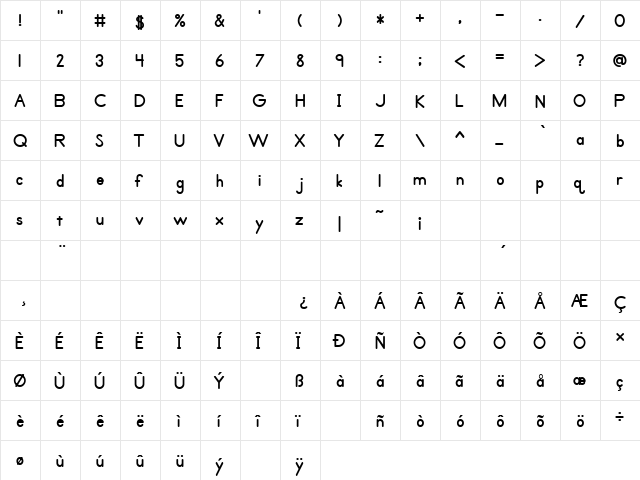
Primer Print Bold
| Foundry | Larabie Fonts |
Design Context for Primer Print Typeface
Primer Print is a composed and adaptable typeface that performs quietly and consistently across a wide range of design contexts. The heavy weight commands attention and anchors typographic hierarchies.